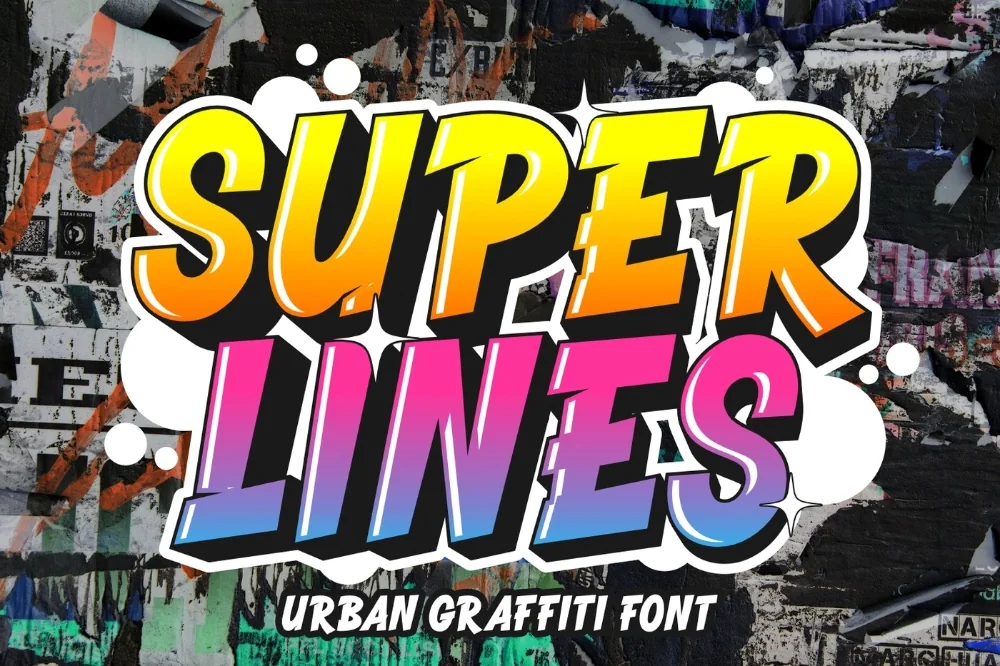
Clean Line Graffiti Font
This line graffiti font was picked for the collection because it solves a problem the obvious choices do not. Single-weight lines with no fill and no texture at all. Minimal graffiti, if such a thing exists.
Each character is drawn with one continuous line of even thickness, keeping the alphabet light on the page even at large sizes. Perfect closed paths make it friendly to cutting software.
Ideal for line-art prints, single-line plotter drawings, minimal merch, and animated stroke effects.
Worth knowing: tighten the letter spacing well past what feels comfortable. Painted lettering is set tight, and default digital spacing makes this genre look oddly polite.